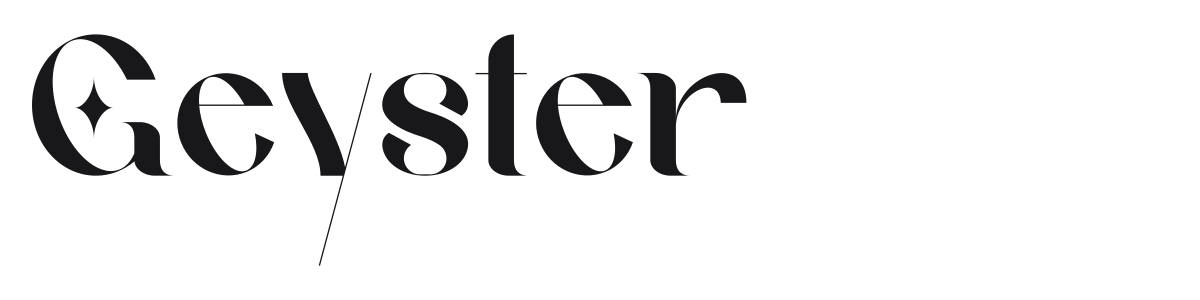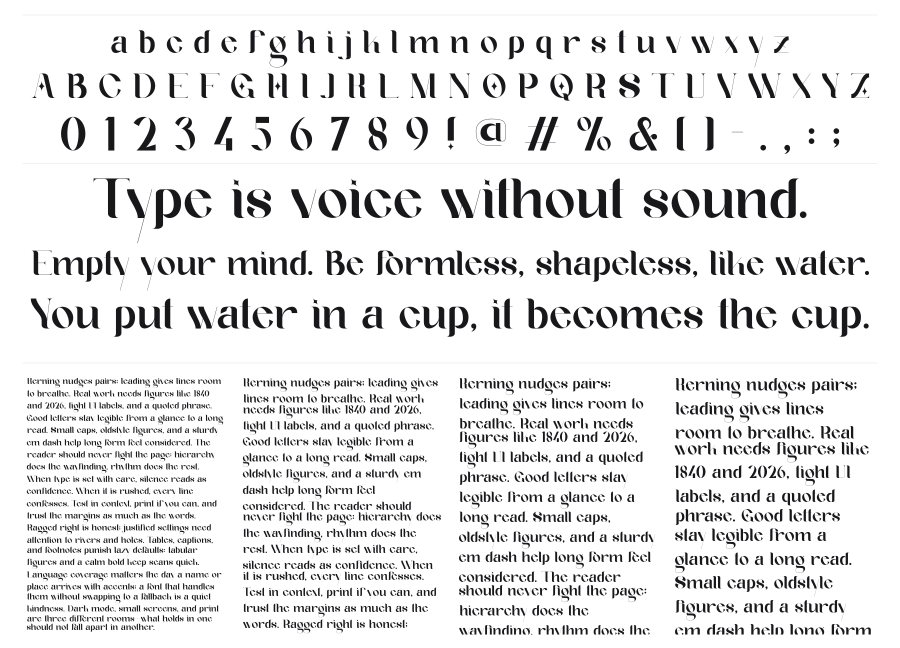
Geyster
by Lettertype Studio · Website
Geyster is a bold modern serif with extreme thick-thin stroke contrast in the classic Didot and Bodoni tradition. Wide, generously spaced characters and razor-thin hairlines give it a dramatic, editorial presence that reads as unmistakably fashion-forward. Strong at large headline sizes, particularly in branding and magazine contexts.